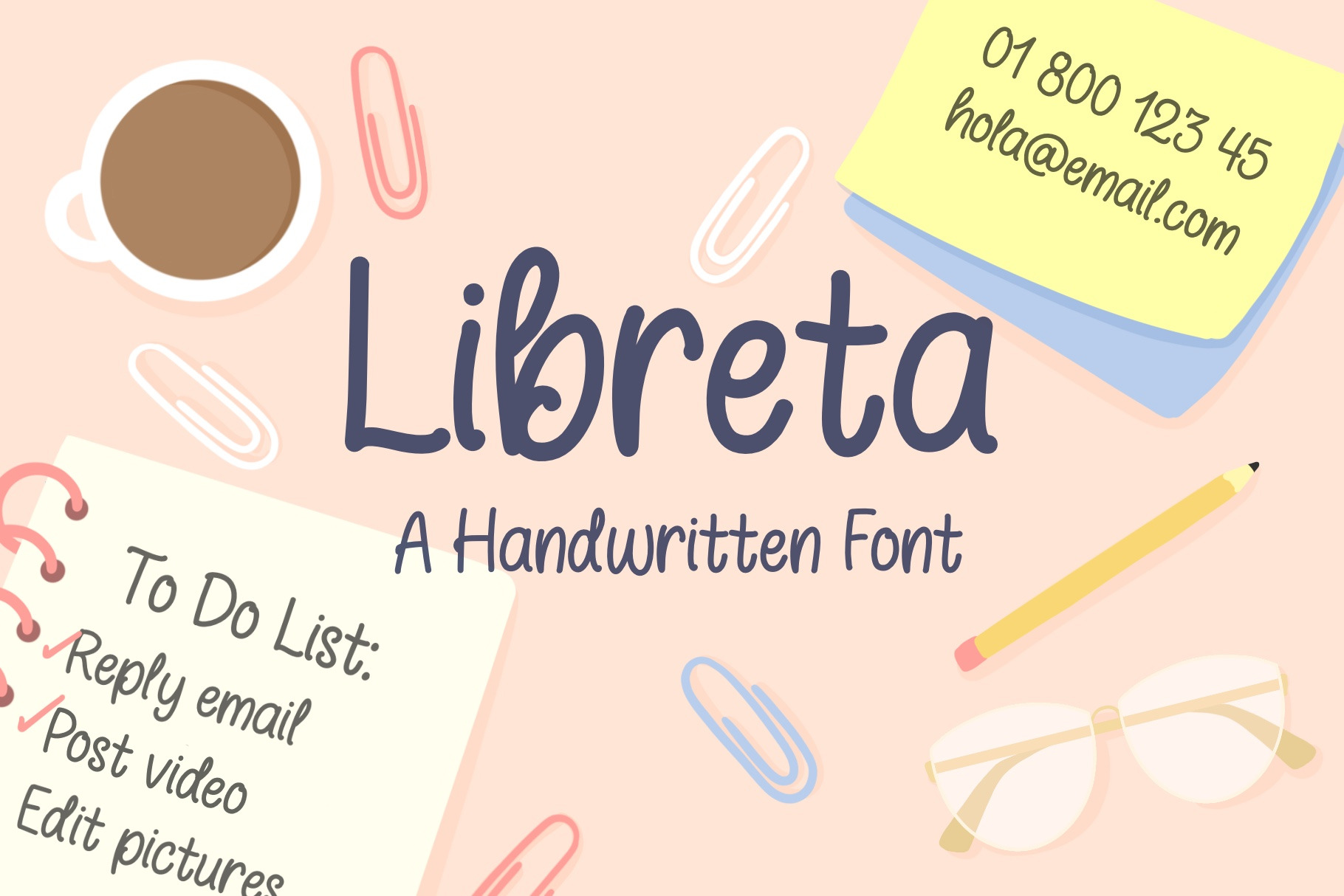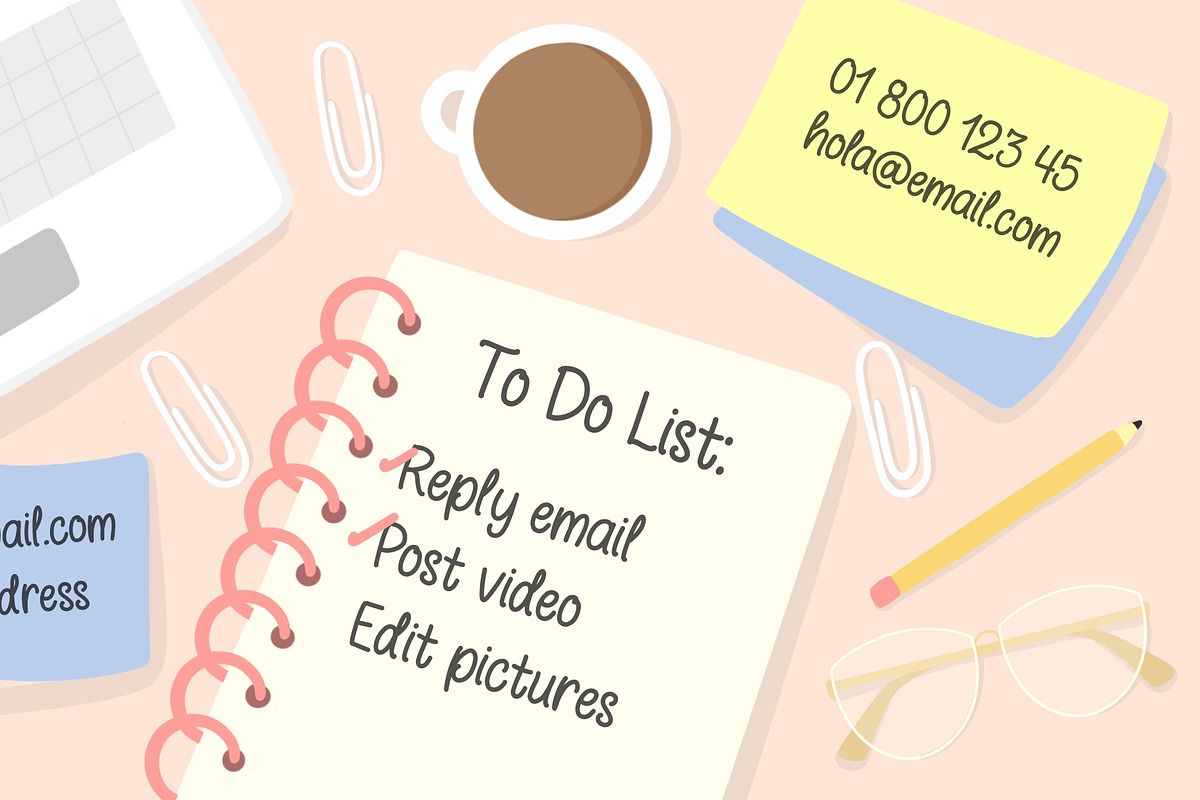
Libreta Handwriting Font
Libreta — Handwritten font
This font is great for notes, teaching material, logos, chalkboard quotes, titles, stationery, posters, book covers, and more.